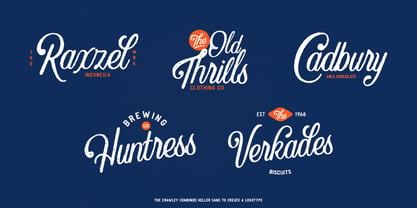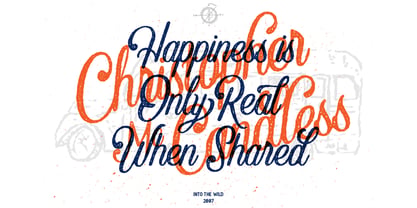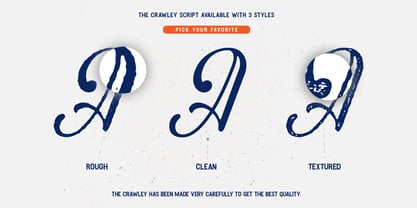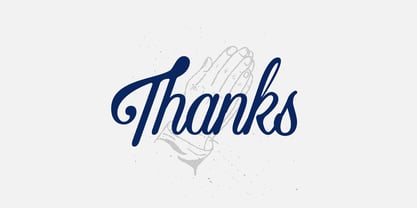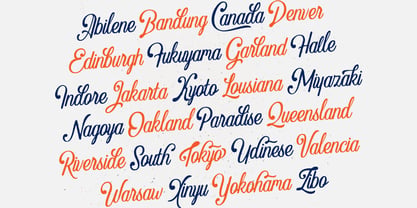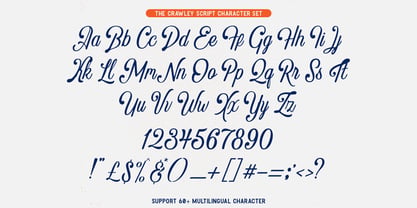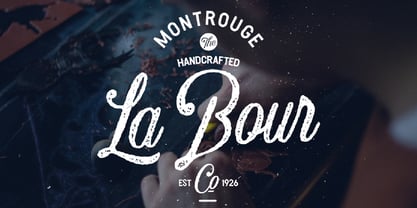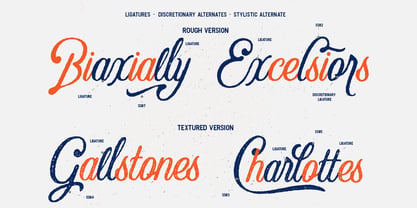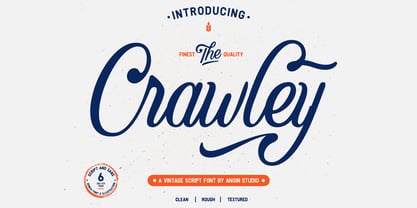
Crawley
by Angin Studio
The Crawley Font Family was designed by Ahmad Aswin, David Novrian and published by Angin Studio. Crawley contains 3 styles and family package options. More about this family
In the world we live in when so much typefaces has been made, people still need the new fresh one to representation their expression and what their speak.
Now let us introduce you our new font called “The Crawley”
Crawley is a vintage script based on our hand lettering, created carefully to make a good flow and make you feel something, this font inspired by the old American packaging, signs, and labels.
Crawley opentype feature with ligature, stylistic alternates, and directionary alternates allow you to mix and match of letters to make your own good design. also Crawley comes with multilingual support.
Designers: Ahmad Aswin, David Novrian
Foundry: Angin Studio